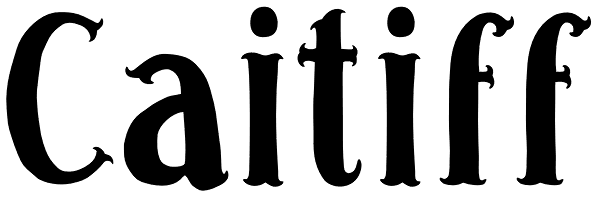
Caitiff
Caitiff is a unique hand drawn serif. It includes about 25 ornaments to compliment your text and a couple of stylistic alternatives to your capital letters. Caitiff Slanted is an oblique version of Caitiff. Caitiff is a decorative typeface. You can...
Caitiff Slanted
Caitiff